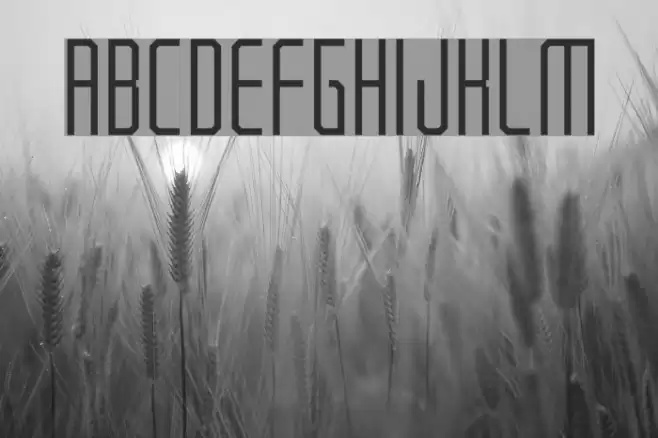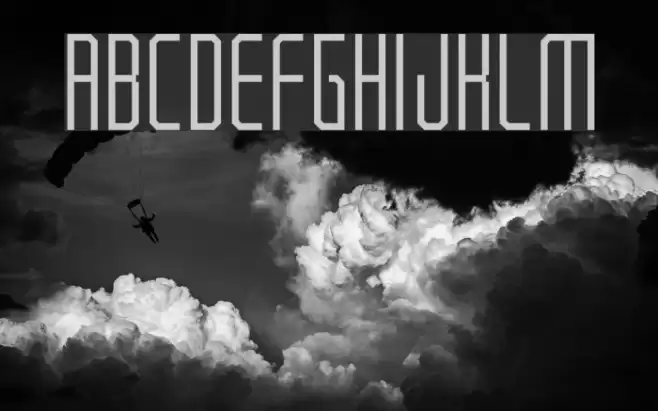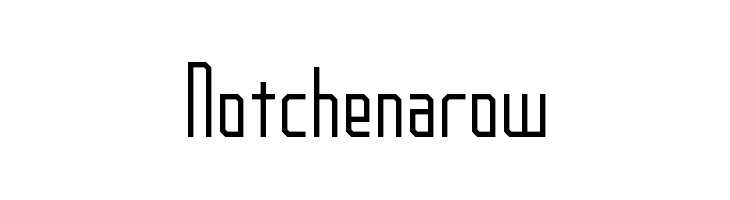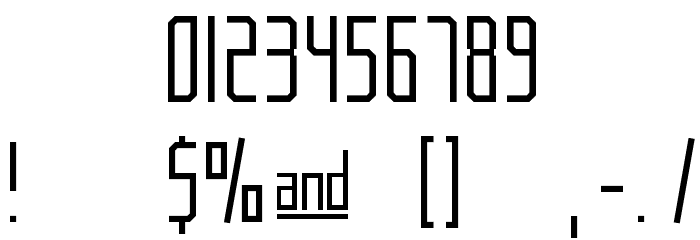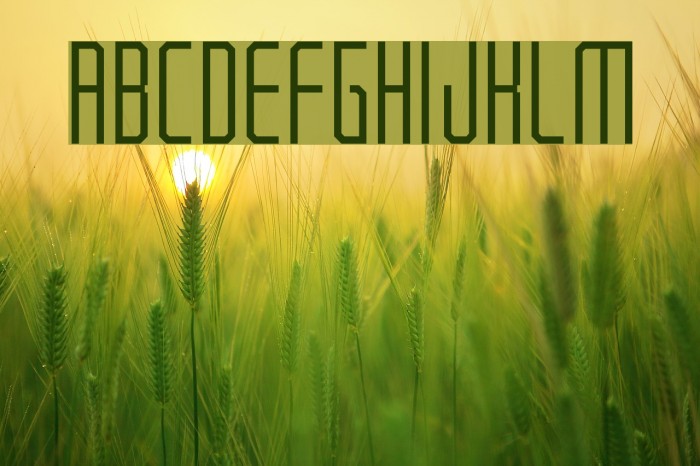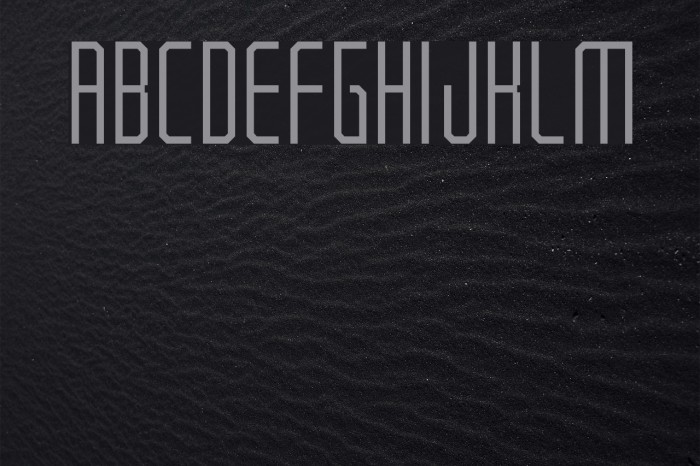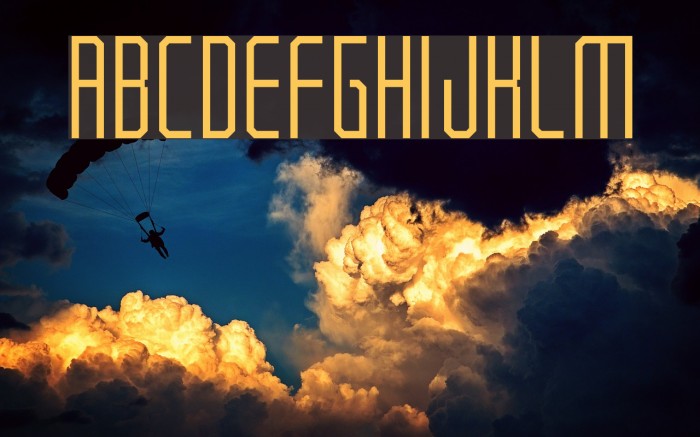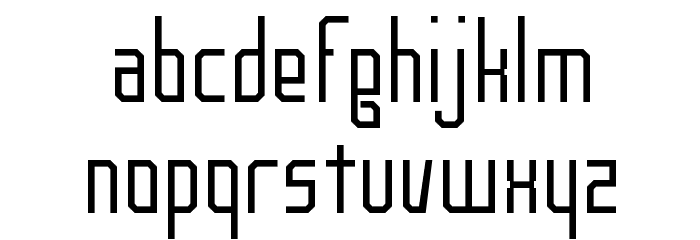
Notchenarow Font
Notchenarow Description
This font features a geometric and modern design with clean, straight lines and a uniform stroke width. The characters are tall and narrow, giving them a condensed appearance. The uppercase letters are slightly taller than the lowercase, maintaining a consistent height across the alphabet. The numerals are similarly styled, aligning well with the overall aesthetic. Special characters are designed to match the font's sleek and minimalistic look, making it suitable for contemporary design projects.
A geometric, modern font with tall, narrow characters and uniform stroke width from Uncategorized fonts.
- Proposed Projects: Ideal for tech branding, modern posters, minimalist design projects, and digital interfaces.
- Use Case: Headlines, Logos, Digital Interfaces